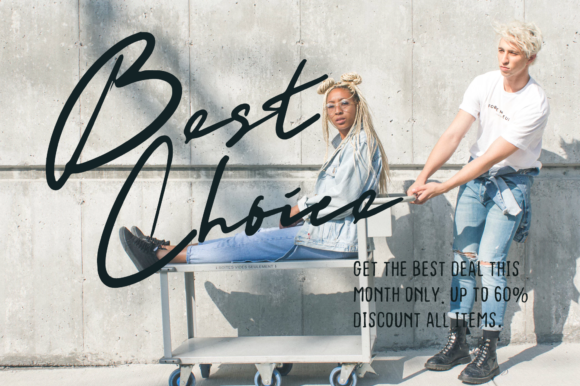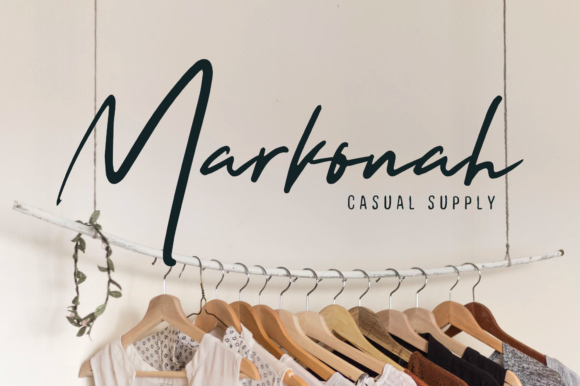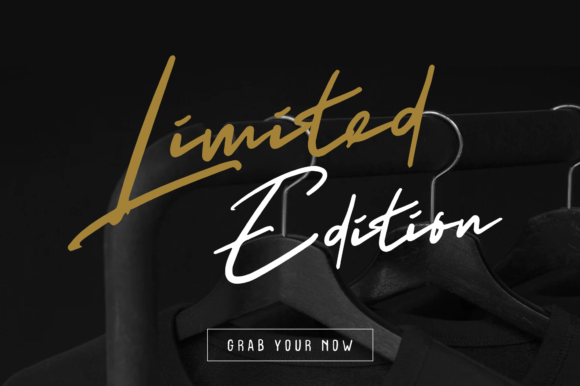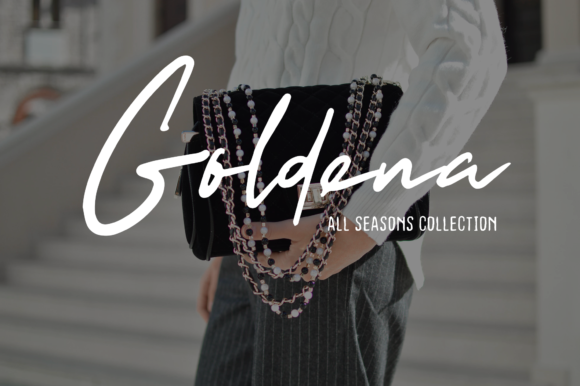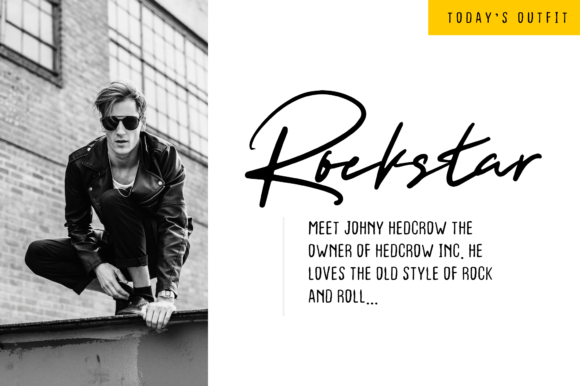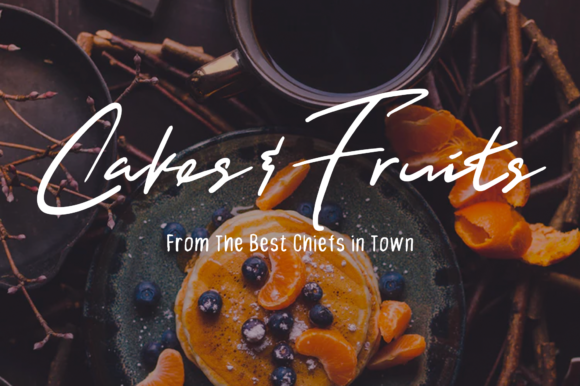
Hello Doe Font: Elevate Your Designs with Elegance and Style
In the world of typography, fonts play a crucial role in conveying the tone and aesthetic of a project. For designers and crafters looking to add a touch of sophistication and elegance to their work, the Hello Doe Font is an exceptional choice. This stunning script font, paired with a complementary sans serif font, is perfect for those seeking to infuse their projects with a laid-back yet stylish vibe.
What is Hello Doe Font?
Hello Doe Font is a gorgeous, fast stroke script that boasts a unique and captivating style. Its fluid, cursive lines exude a sense of elegance and refinement, making it an ideal choice for headlines, titles, and other design elements where visual impact is key. The font’s smooth, connected strokes create a beautiful flow that is both visually appealing and easy to read.
Key Features of Hello Doe Font
- Stylish Script Style: Hello Doe Font features a stunning script style that adds a touch of sophistication to any project.
- Complementary Sans Serif Font: The duo includes a clean and modern sans serif font that perfectly complements the main script style, providing flexibility and versatility in design.
- Laissez-Faire yet Stylish Vibe: The font combination is ideal for designers looking to convey a relaxed, casual attitude while still maintaining an air of style and elegance.
- Fast Stroke: The font’s fast stroke style gives it a dynamic and energetic feel, perfect for capturing the attention of your audience.
Hello Doe Font is a versatile and practical choice for a wide range of design projects, including:
- Branding and Logo Design: The font’s unique style makes it perfect for creating memorable and impactful logos.
- Advertising and Marketing Materials: The font’s elegant and stylish vibe is well-suited for headlines, titles, and other design elements in advertising and marketing materials.
- Packaging and Product Design: The font’s versatility makes it an excellent choice for packaging and product design, where visual appeal is crucial.
- Digital and Print Media: The font is optimized for use in both digital and print media, ensuring that your designs look great across various platforms.
Why Choose Hello Doe Font?
With so many fonts available, why choose Hello Doe Font? Here are just a few reasons:
- Unique Style: The font’s distinctive style sets it apart from more traditional fonts, giving your designs a fresh and modern look.
- High Readability: Despite its elegant and cursive nature, the font remains highly readable, making it perfect for use in a variety of design applications.
- Flexibility: The inclusion of a complementary sans serif font provides designers with the flexibility to create visually appealing and cohesive designs.
Hello Doe Font is a stunning and versatile font duo that is sure to elevate your designs with its elegant and stylish vibe. Whether you’re a designer or crafter looking to add a touch of sophistication to your projects, this gorgeous script font and its complementary sans serif font are an excellent choice. With its unique style, high readability, and flexibility, Hello Doe Font is the perfect addition to your typography collection.